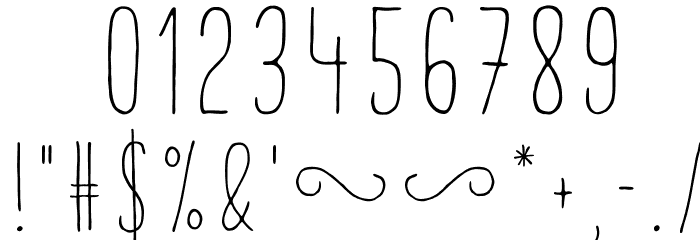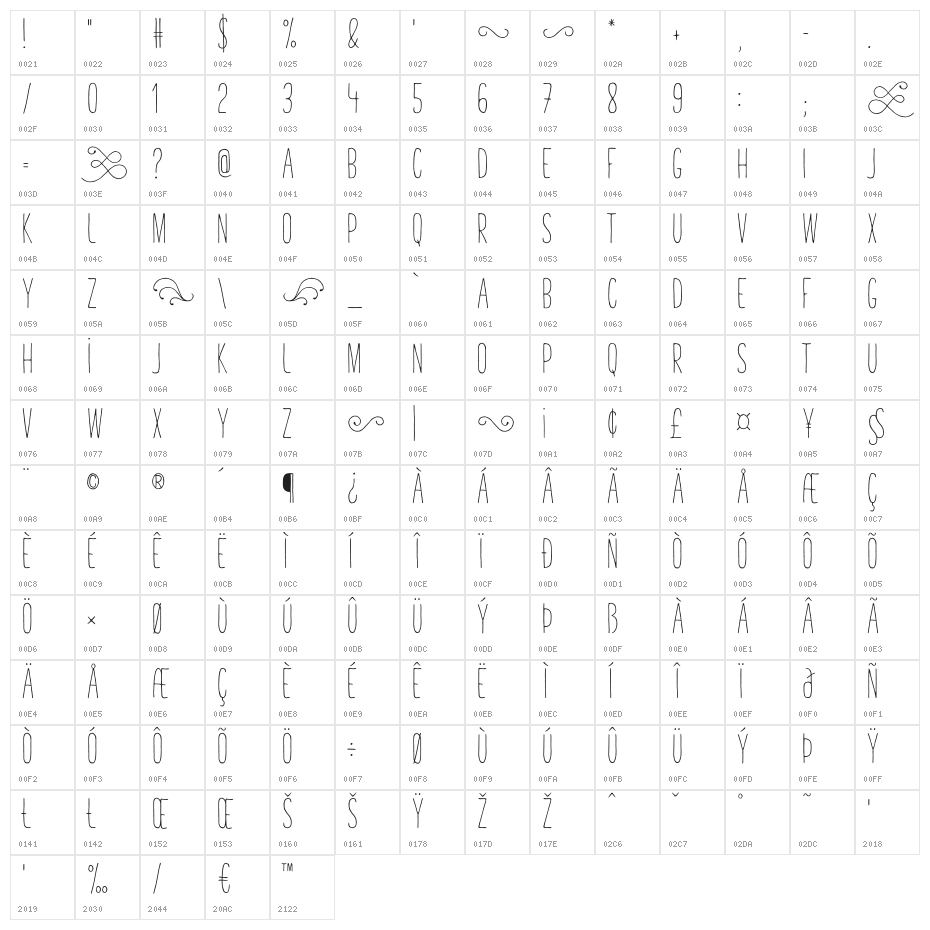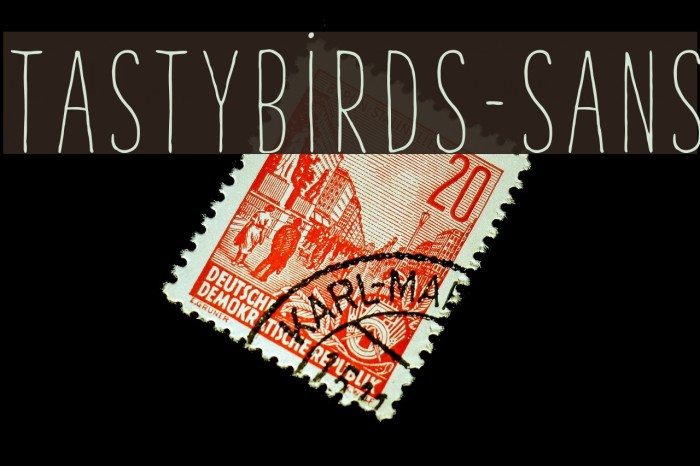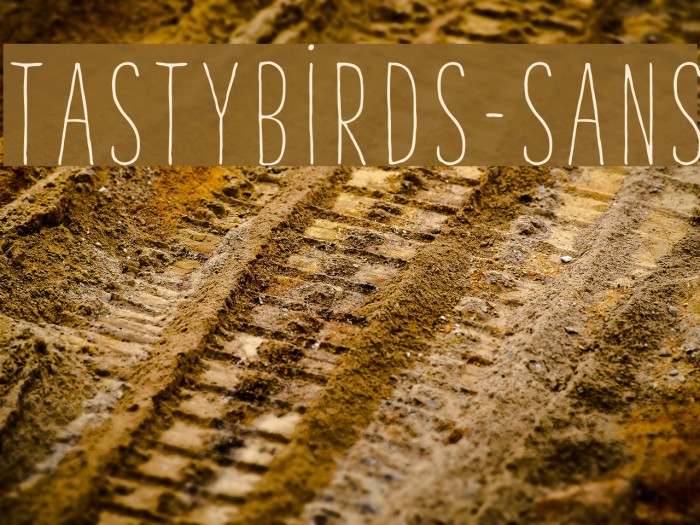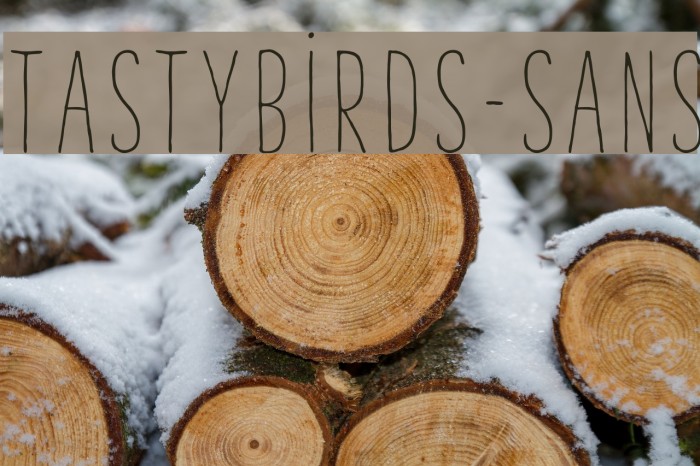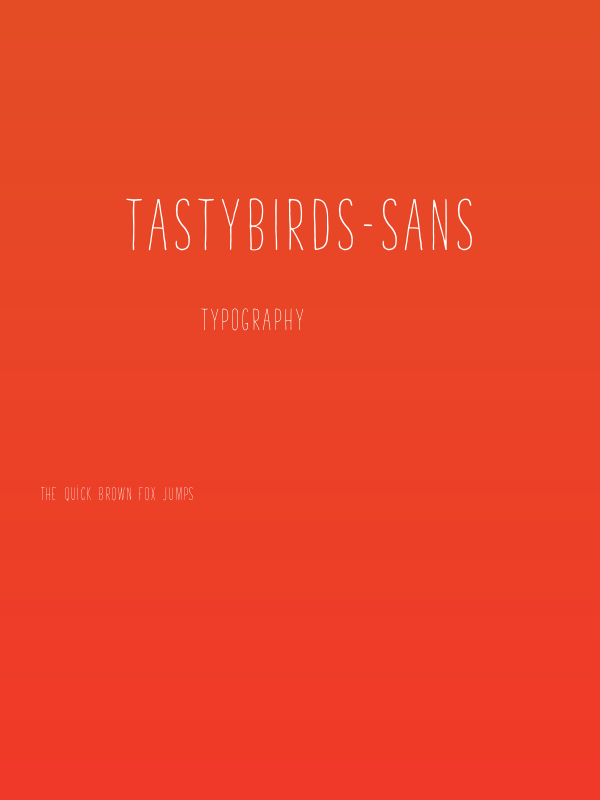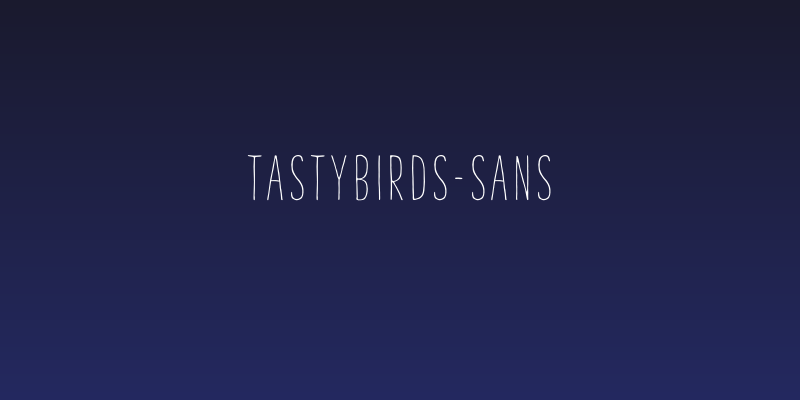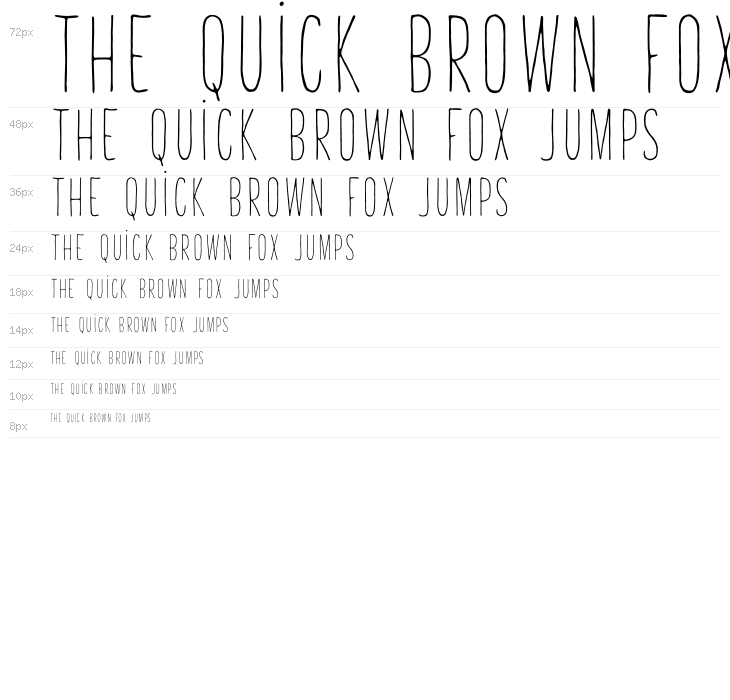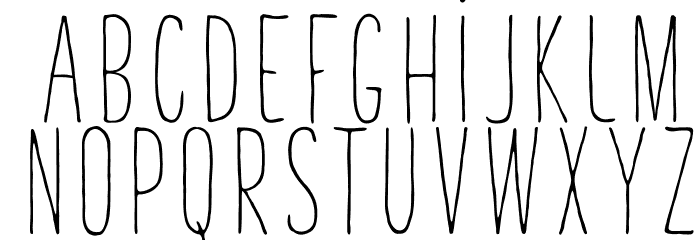
TastyBirds-Sans Font
TastyBirds-Sans Description
This font features a playful and whimsical style with tall, narrow characters that have a hand-drawn appearance. The strokes are uneven, giving it a casual and organic feel. The uppercase and lowercase letters maintain a consistent height, while the numbers and special characters complement the overall aesthetic. The font is characterized by its thin lines and slight irregularities, which add to its charm and uniqueness. It is well-suited for projects that require a touch of personality and creativity.